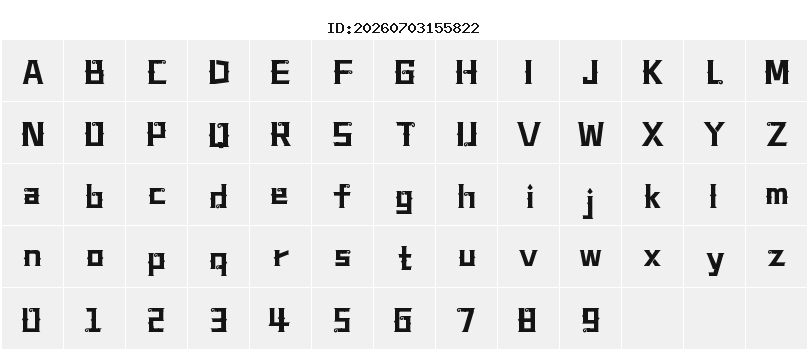
389-上首悟空体 Preview
• Font Name: 389-上首悟空体
• Font ID: 389-SSWuKongTi:Version 4.00
• Full Font Name: 389-上首悟空体
• Version: Version 4.00 January 2, 2025
• PostScript Name: 389-SSWuKongTi
• Character Count: 7568
• Manufacturer: 上首造字
About 389-上首悟空体.ttf
389-上首悟空体.ttf is a modern, elegant sans-serif font designed for ultimate readability and visual harmony. Perfect for branding, headlines, web design, and print materials.